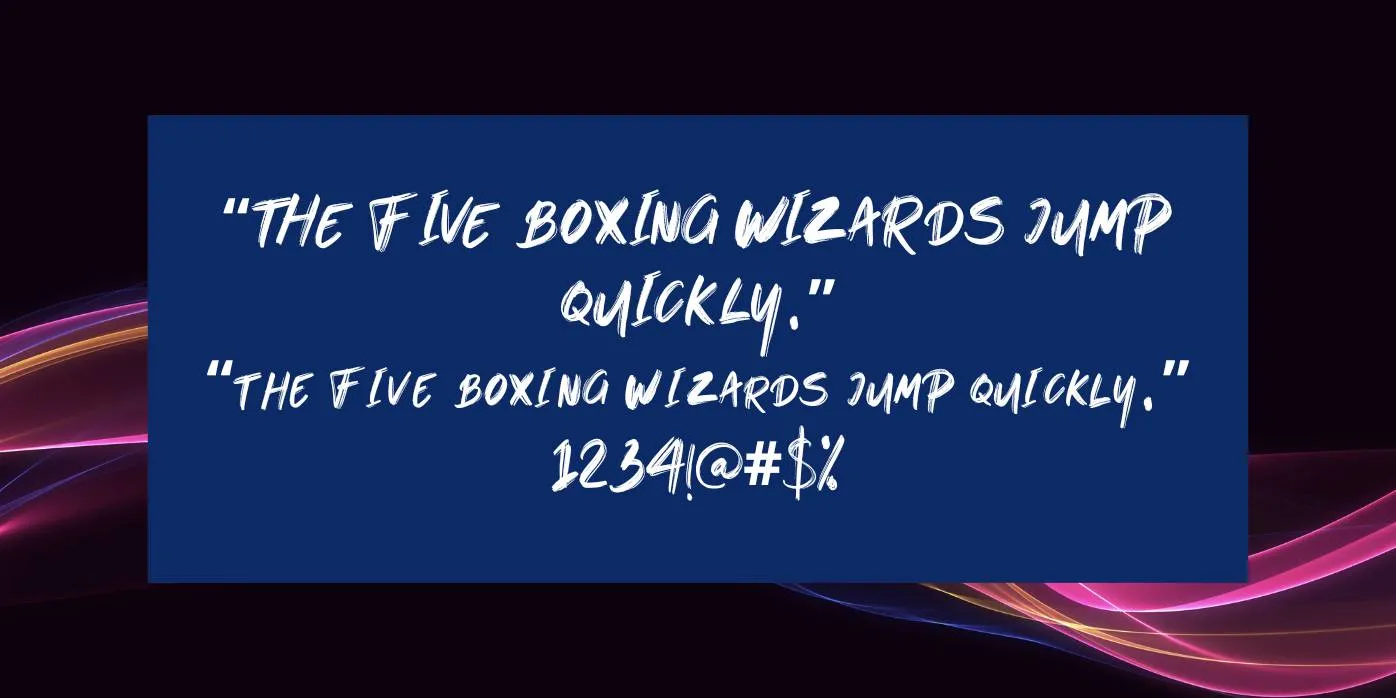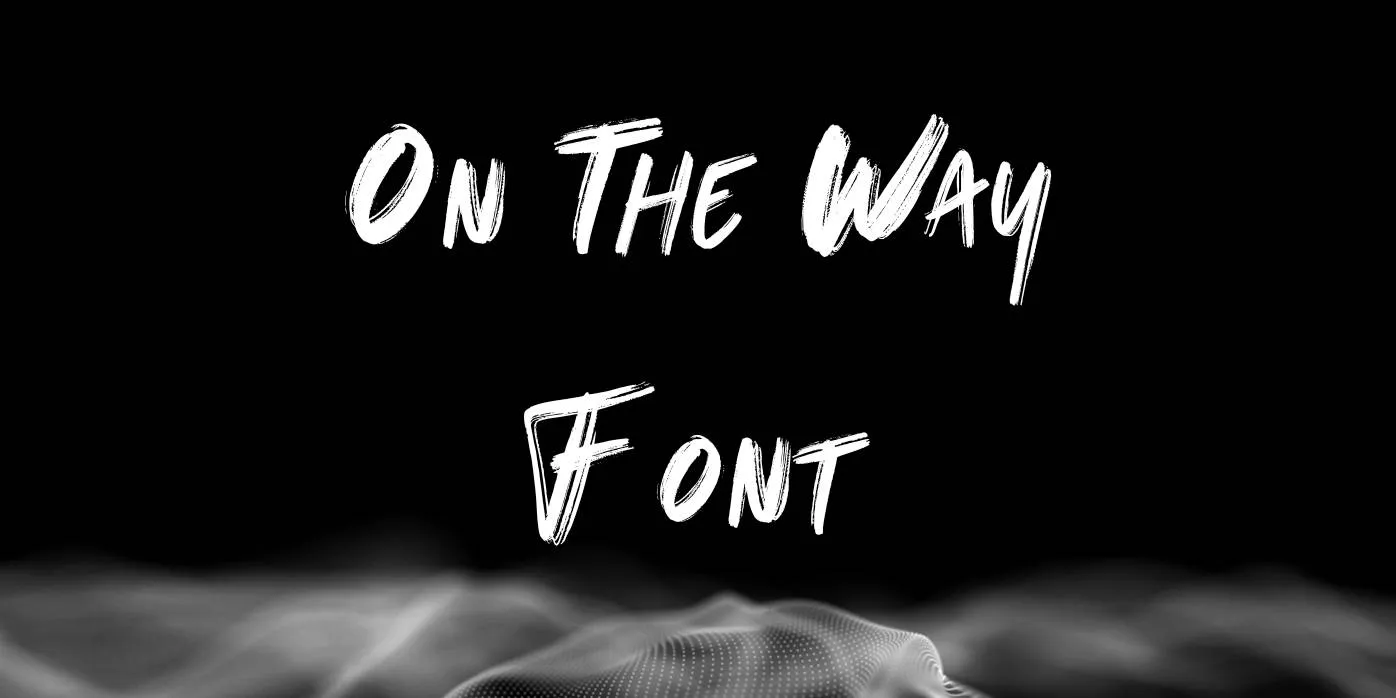
On The Way Font
You are going to read about the famous brush texture. On The Way Font is a brush type of typeface. Symphony Studio is the designer of this typeface. There are 82 fantastic glyphs for this typeface.